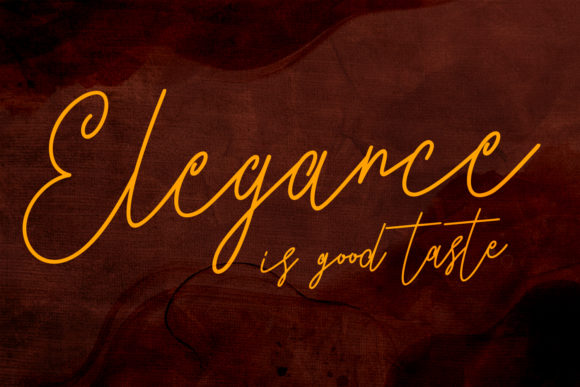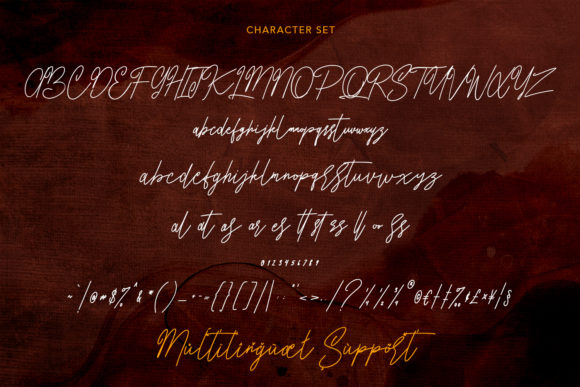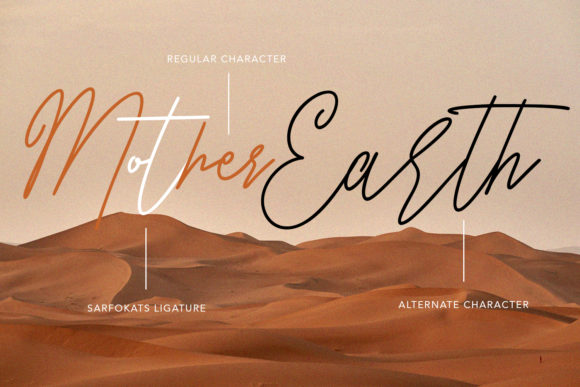
Introduction to Sarfokats Font
Sarfokats is a stylish and delicate script font.
It has a clean, thin and smooth vibe and it will be a hit for any design that you want to add it to Fall in love with its incredibly versatile style and use it to create spectacular designs.
Why Choose Sarfokats Font?
Sarfokats Font offers exceptional quality and versatility, making it a valuable addition to your design toolkit. Whether you’re creating for personal projects or commercial use, Sarfokats Font delivers professional results.